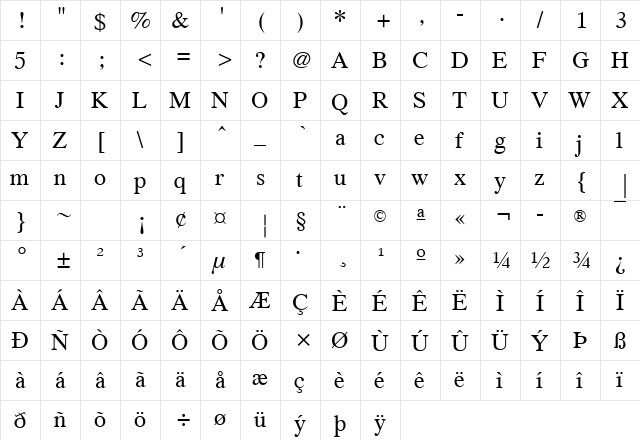
PC Tennessee Roman
Design Context for PC Tennessee Typeface
PC Tennessee is a composed and adaptable typeface that performs quietly and consistently across a wide range of design contexts.